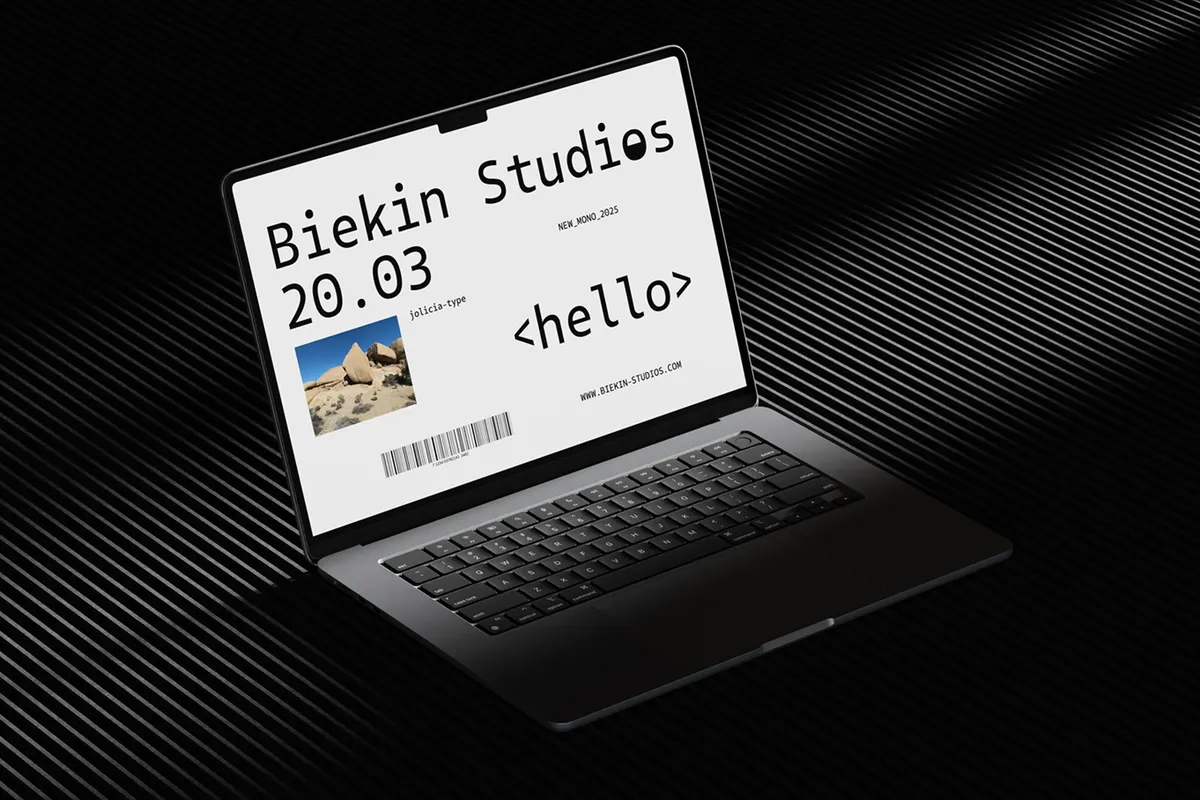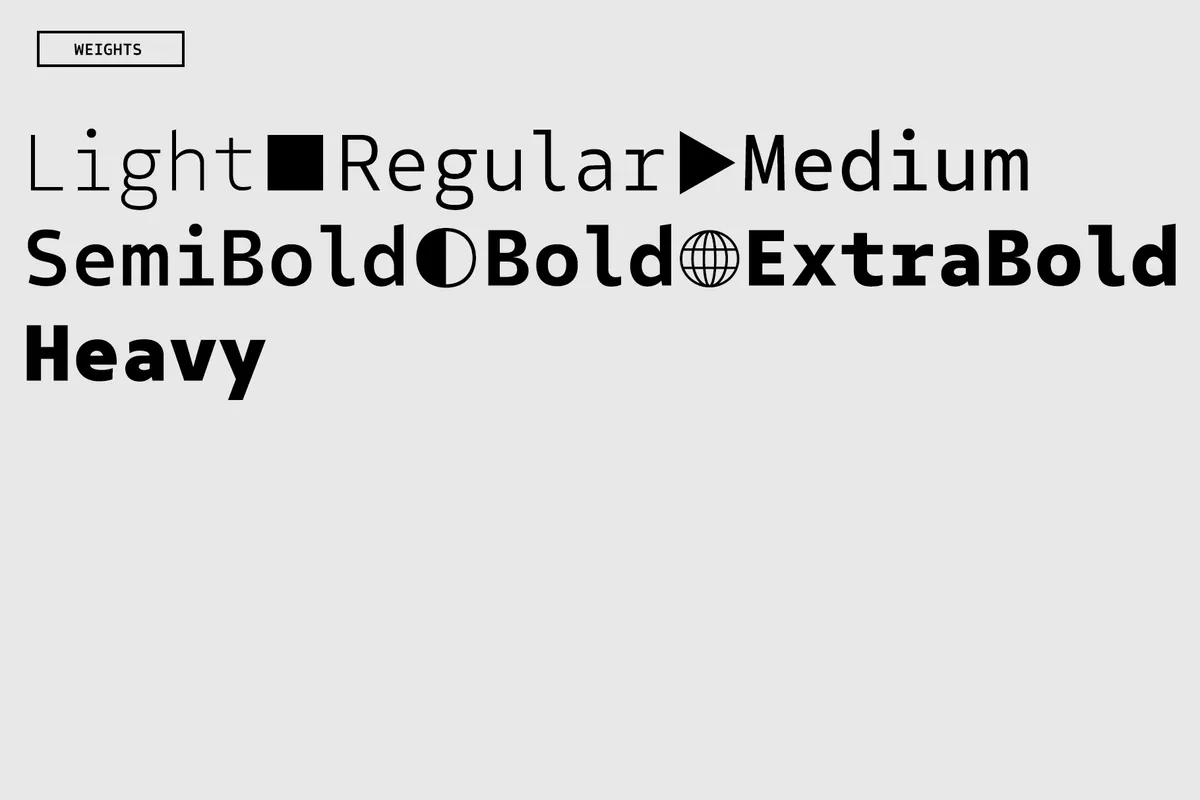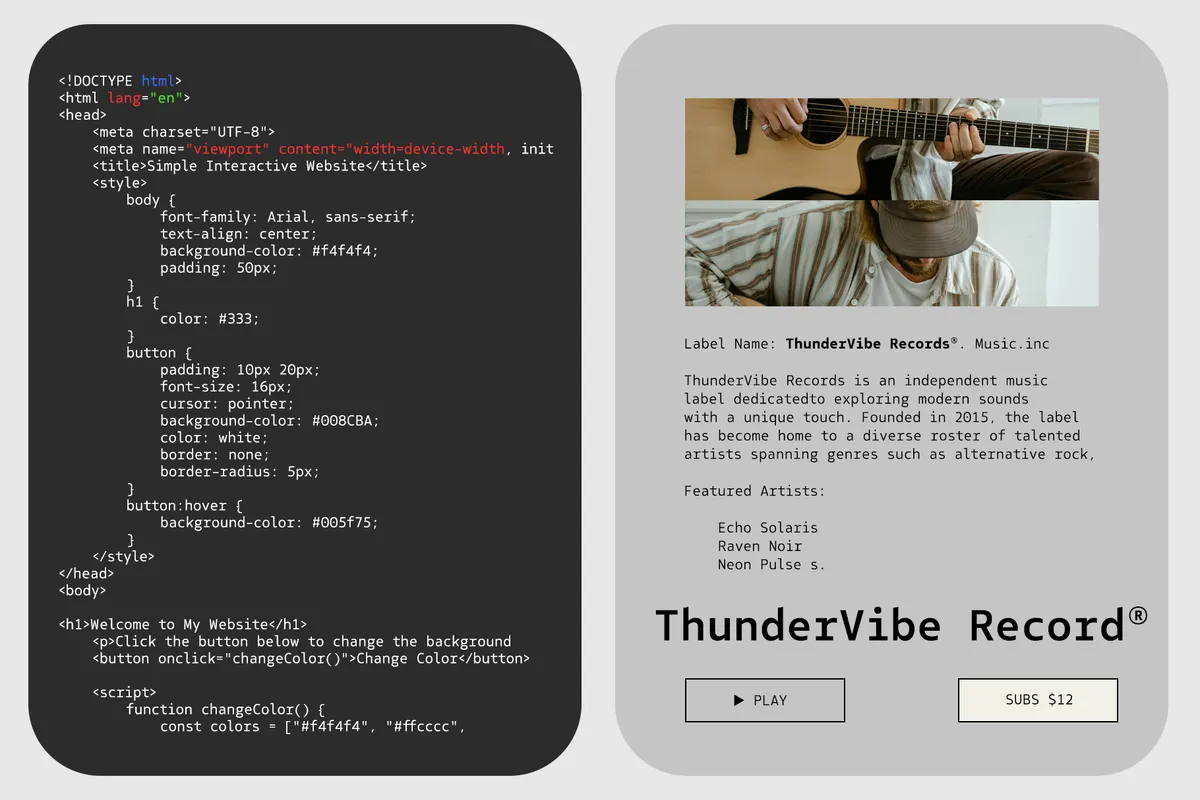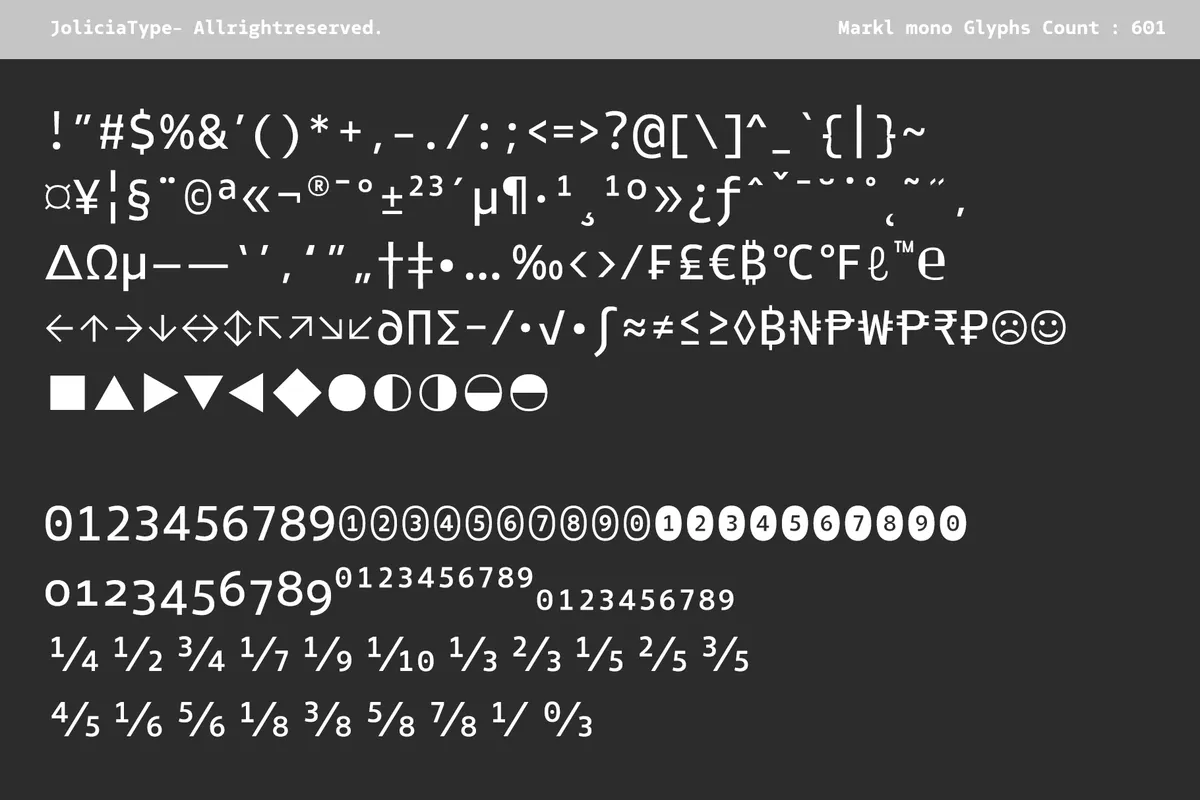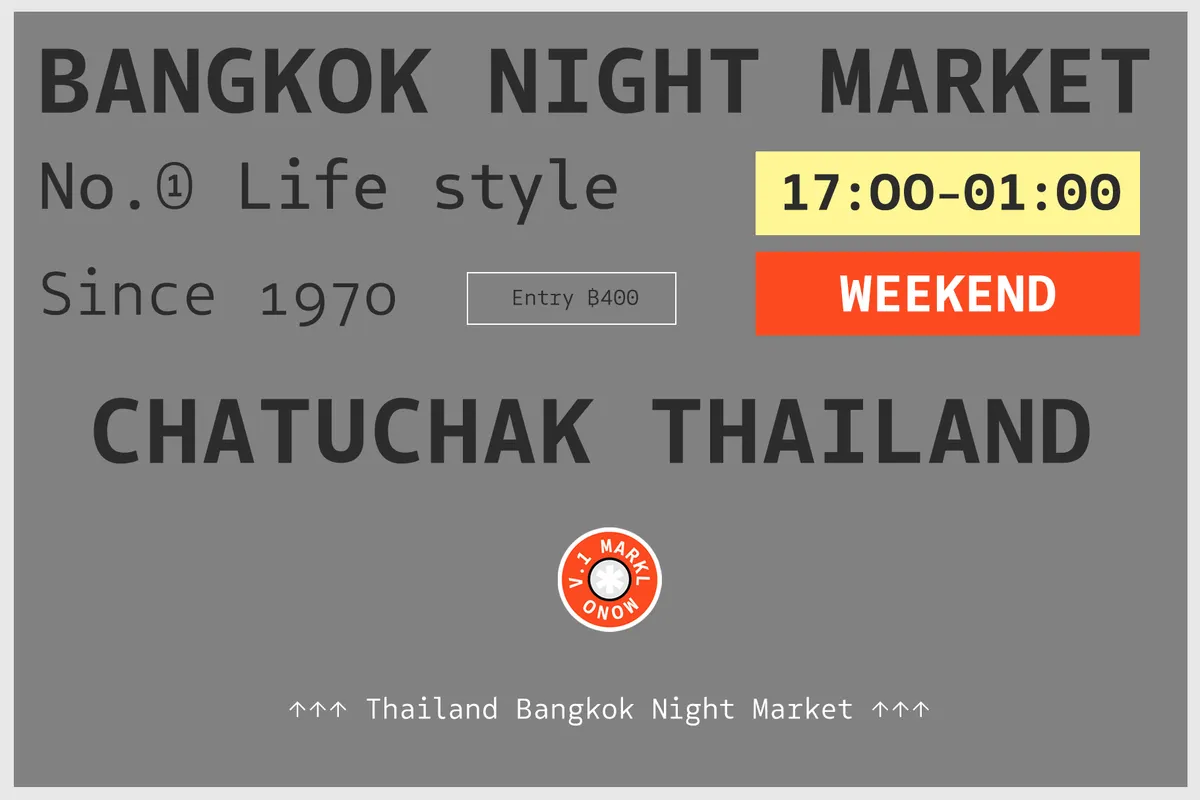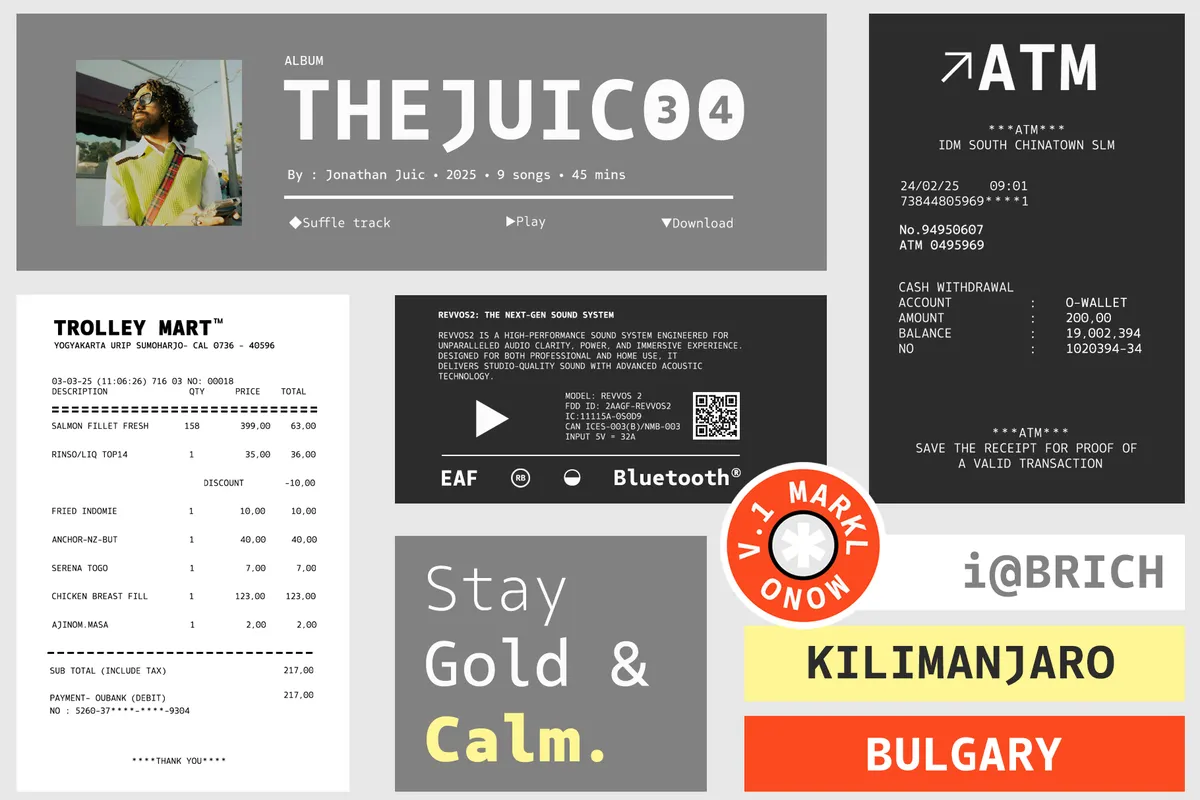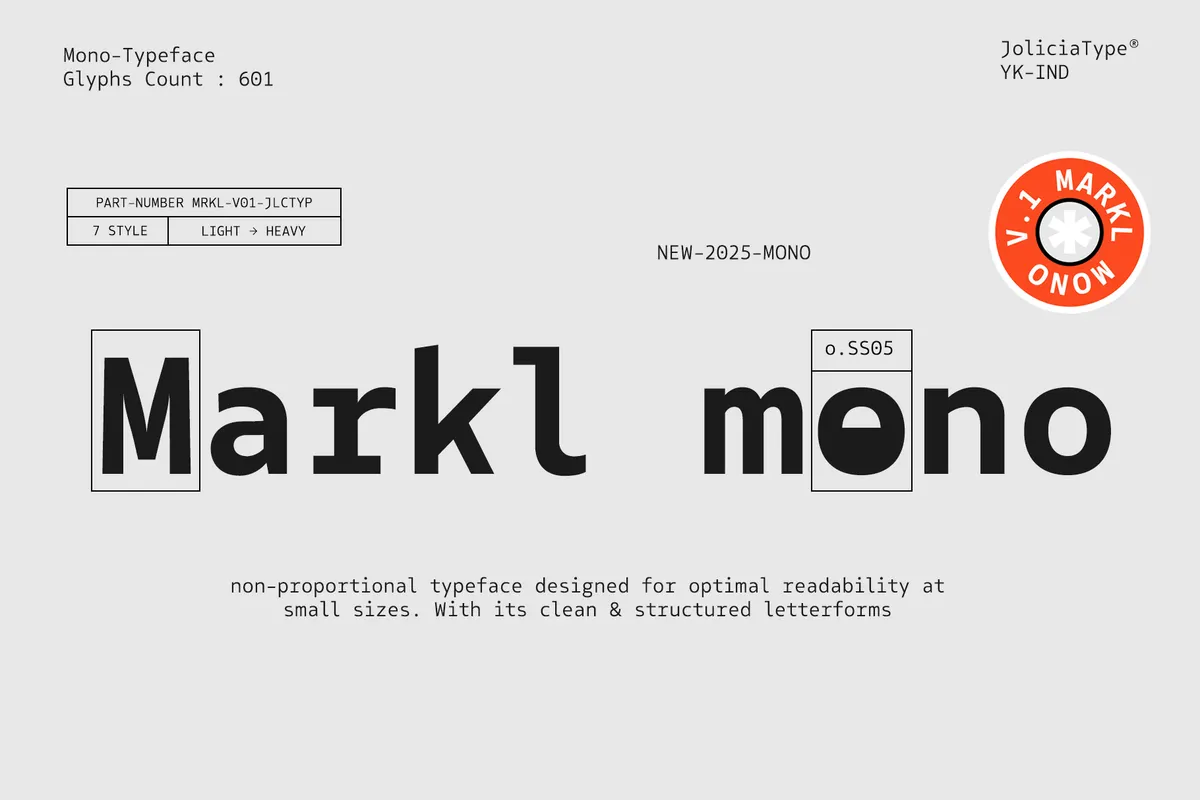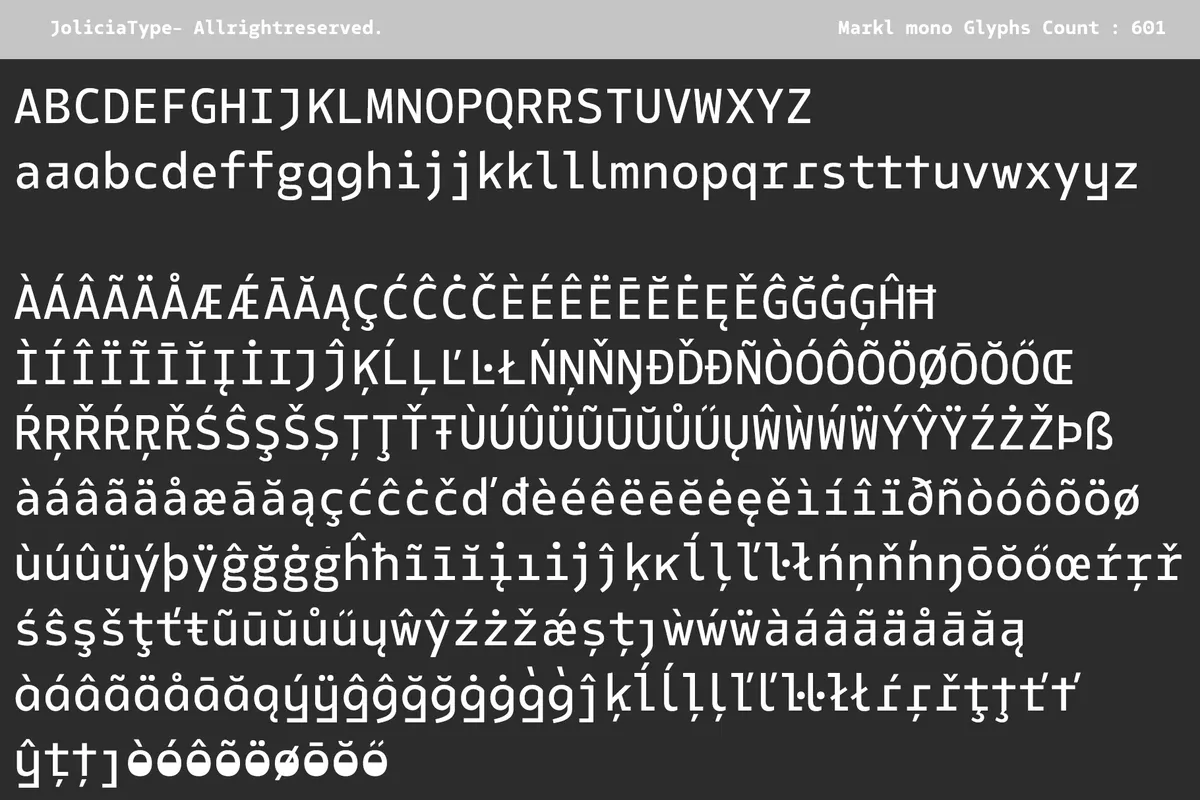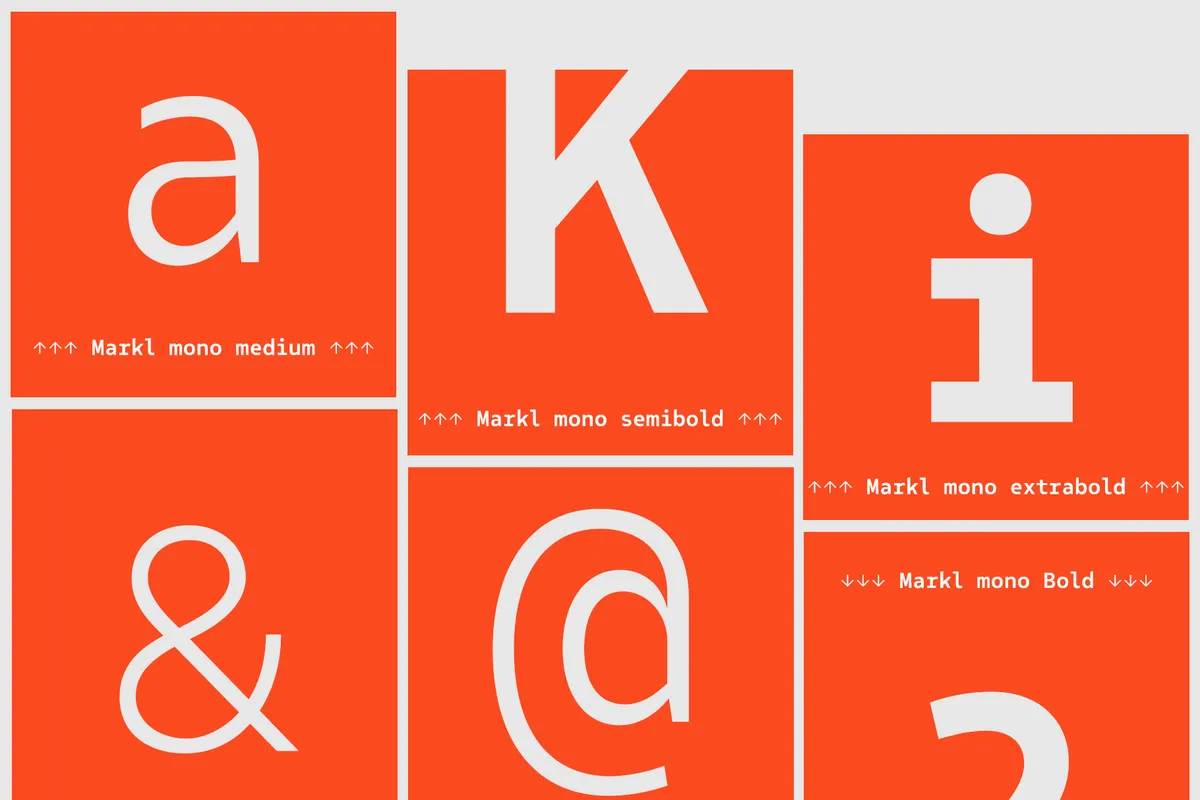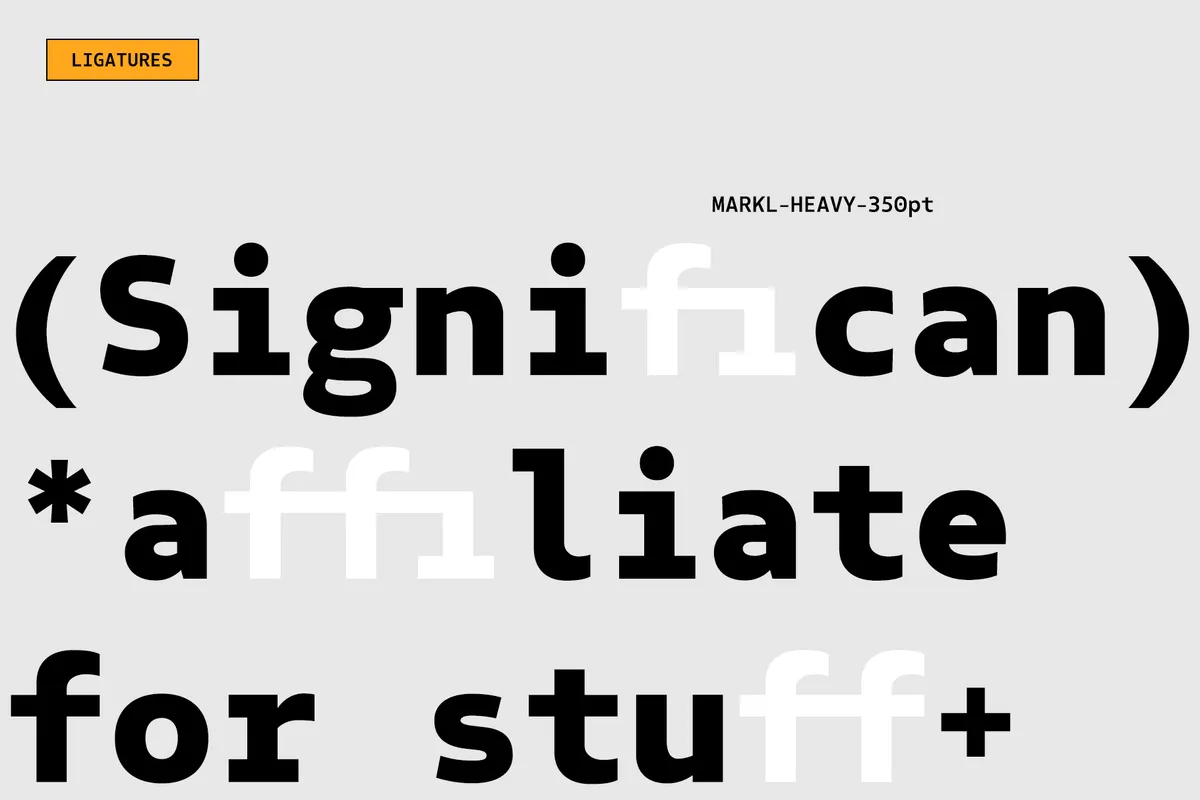
Markl Mono - Typewriter Style Sans Font
Markl Mono draws even, blocked-in letterforms across seven weights, from a light hairline through a heavy weight, closer to a control-panel label than a soft display face. The design reads as evenly spaced at a glance, though letter widths flex from character to character rather than locking to one fixed measure, so it plays a mono-inspired rhythm rather than genuine fixed-pitch spacing. Eleven letters, R, a, f, g, j, k, l, o, r, t, and y, come with stylistic alternates reachable through the OpenType panel, and a few of them offer a second alternate form beyond the first.
Use it for UI and dashboard interfaces, code and technical documentation, data tables, receipts and ticket-style graphics, and editorial layouts that want a structured, technical voice.
- Uppercase & lowercase;
- Numerals, punctuation & symbols;
- 7 weights: Light, Regular, Medium, SemiBold, Bold, ExtraBold, Heavy;
- Ligatures (fi, ff, ffi) and stylistic alternates on select characters;